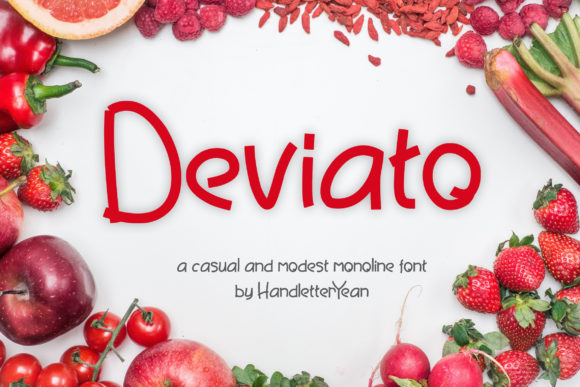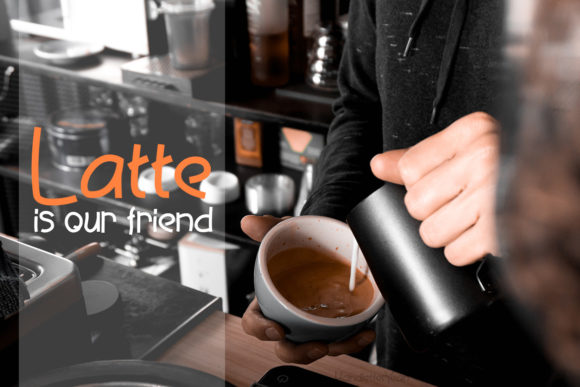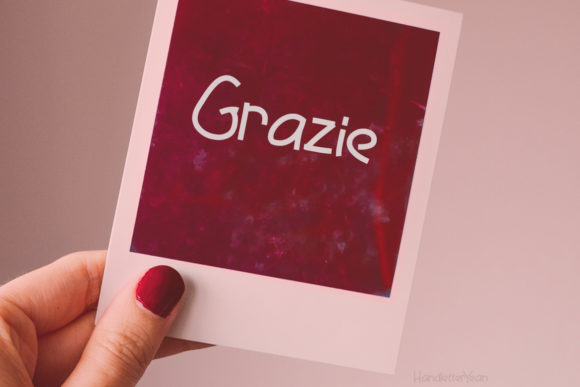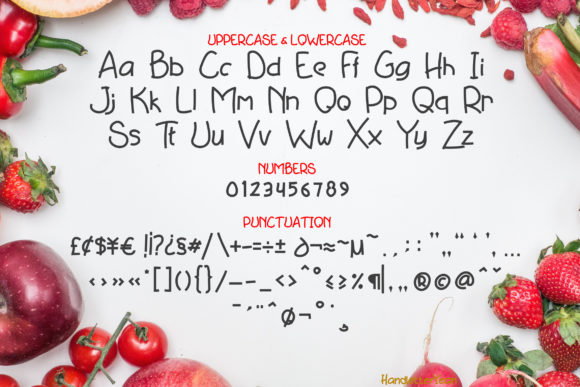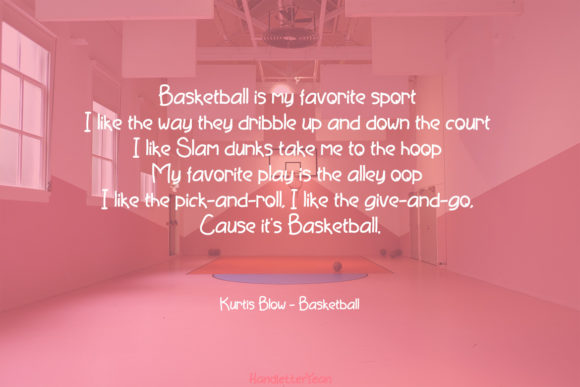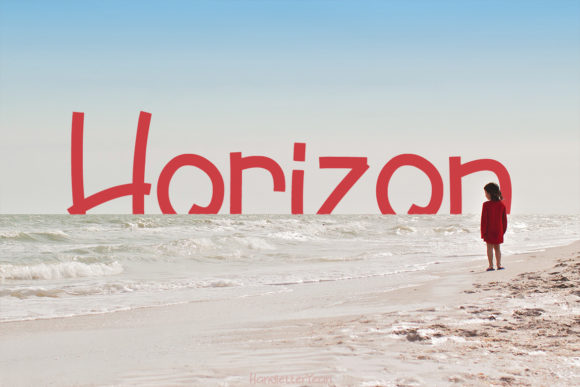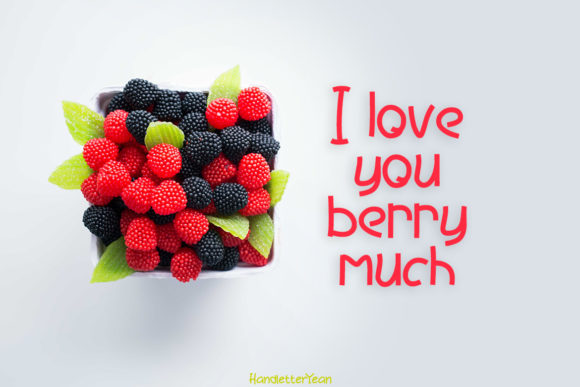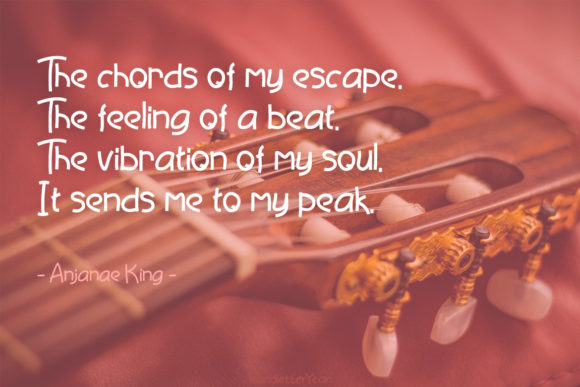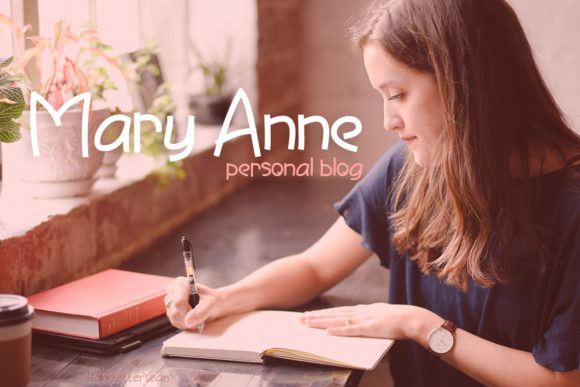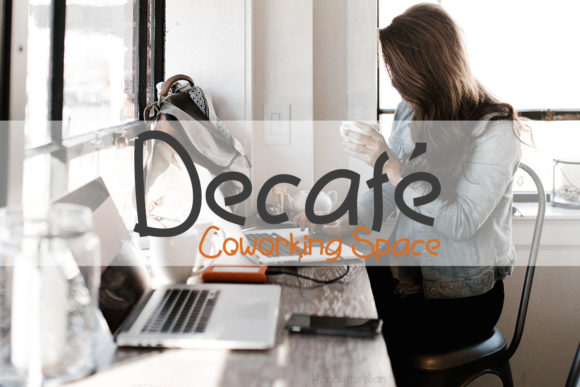
Deviato Font
About Deviato Font
The Deviato is an unique monoline font. It was made to fulfill your needs of a simple monoline font and show modesty on it’s appearance.
It can be used for logos, personal or company branding, quotes, daily typing fonts, greeting cards, stickers, and many more.